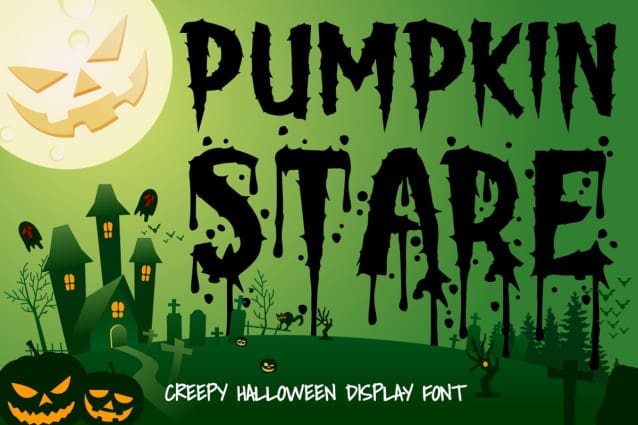
Pumpkin Stare Font
Pumpkin Stare Font – a Halloween Display Font that encapsulates the eerie and playful spirit of Halloween. This font is meticulously crafted, embodying elements of horror, scariness yet infused with a quirky and playful tone making it perfect for a range of creative and thematic projects. Each letter is designed with intricate details, echoing the chilling vibes of haunted houses, creepy pumpkins, and whimsical monsters.
“Pumpkin Stare” offers an array of font variations tailored for Halloween or similar themed events. Each style can stand alone or be combined to add depth and intrigue to your design projects. It’s not just a font; it’s a versatile tool aimed at bringing your spooky yet fun ideas to life. Ideal for logos, branding, children themes, crafting, invitation cards, packaging, posters titles business cards greeting cards stickers children’s books magazines and any design correlating with the font’s theme.